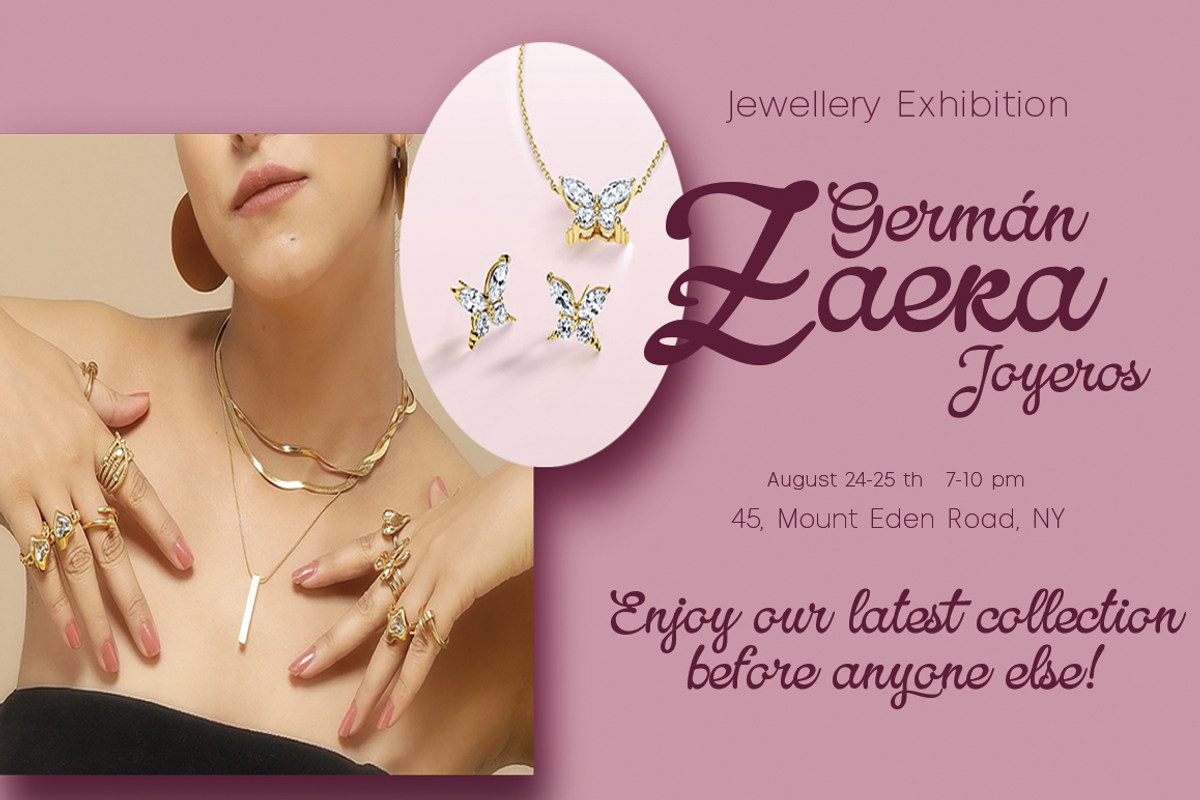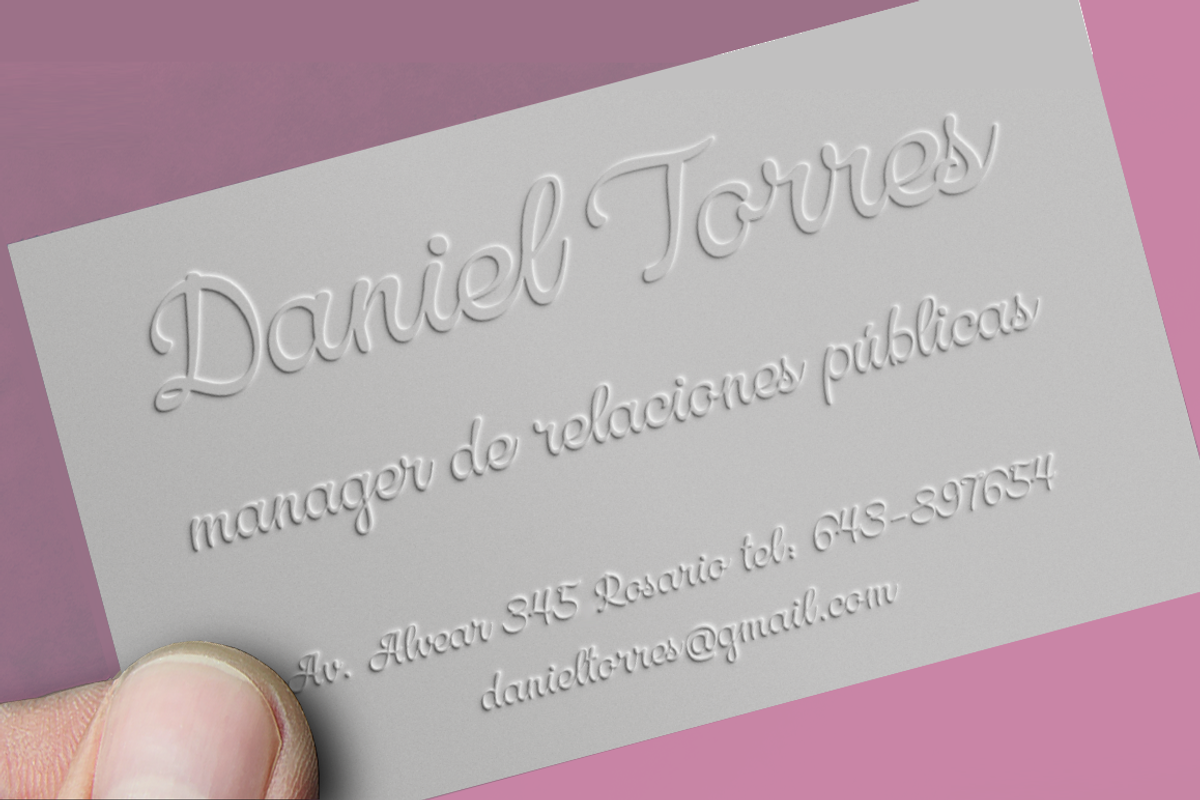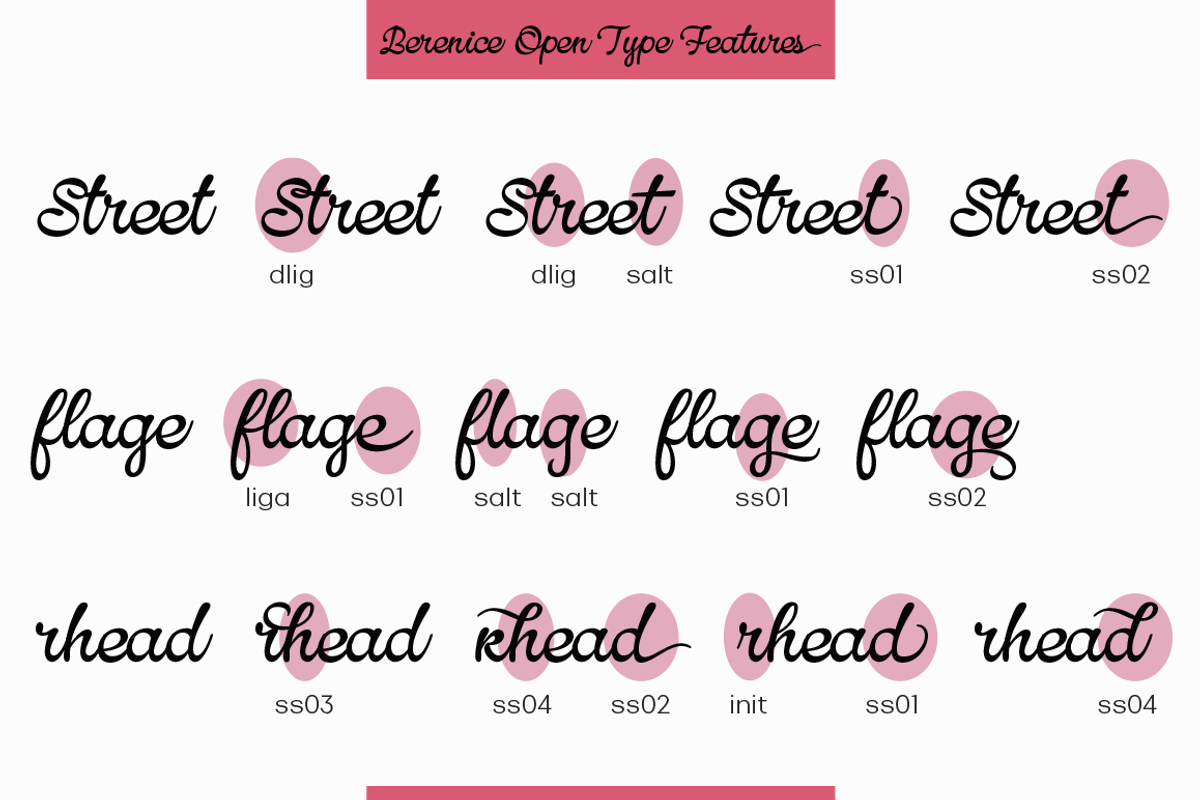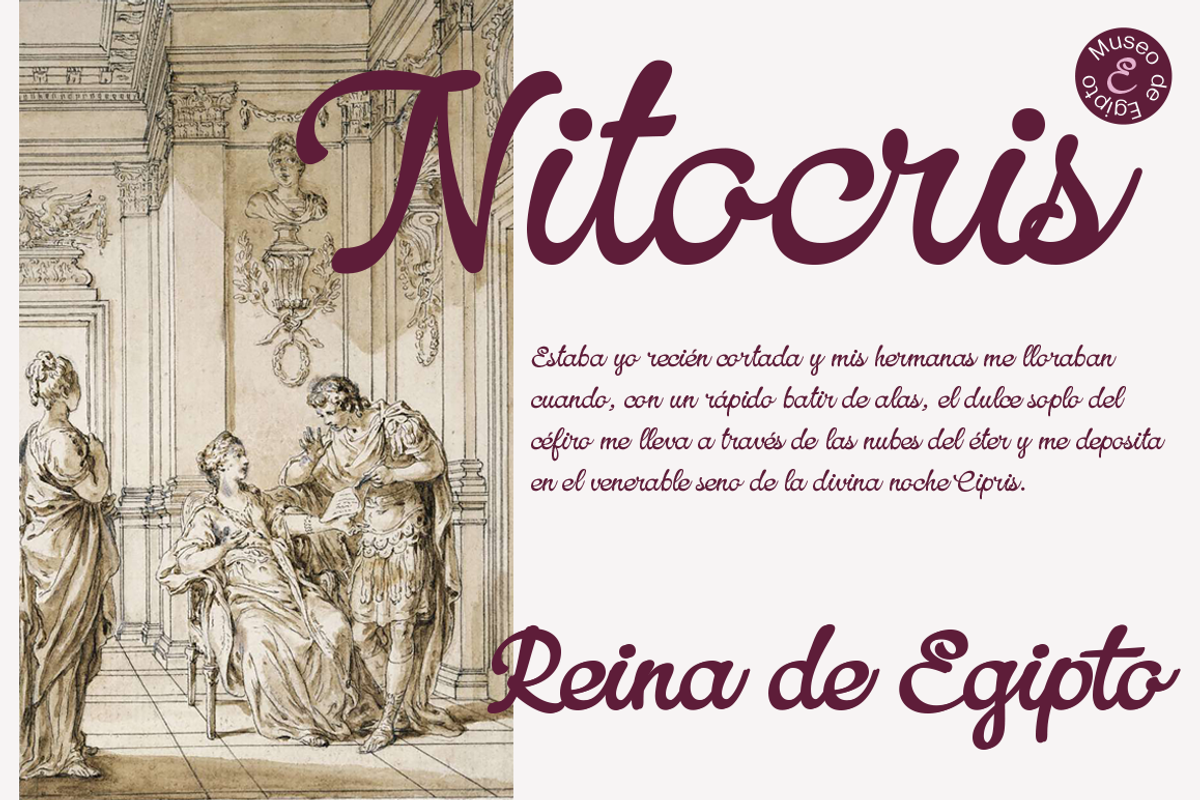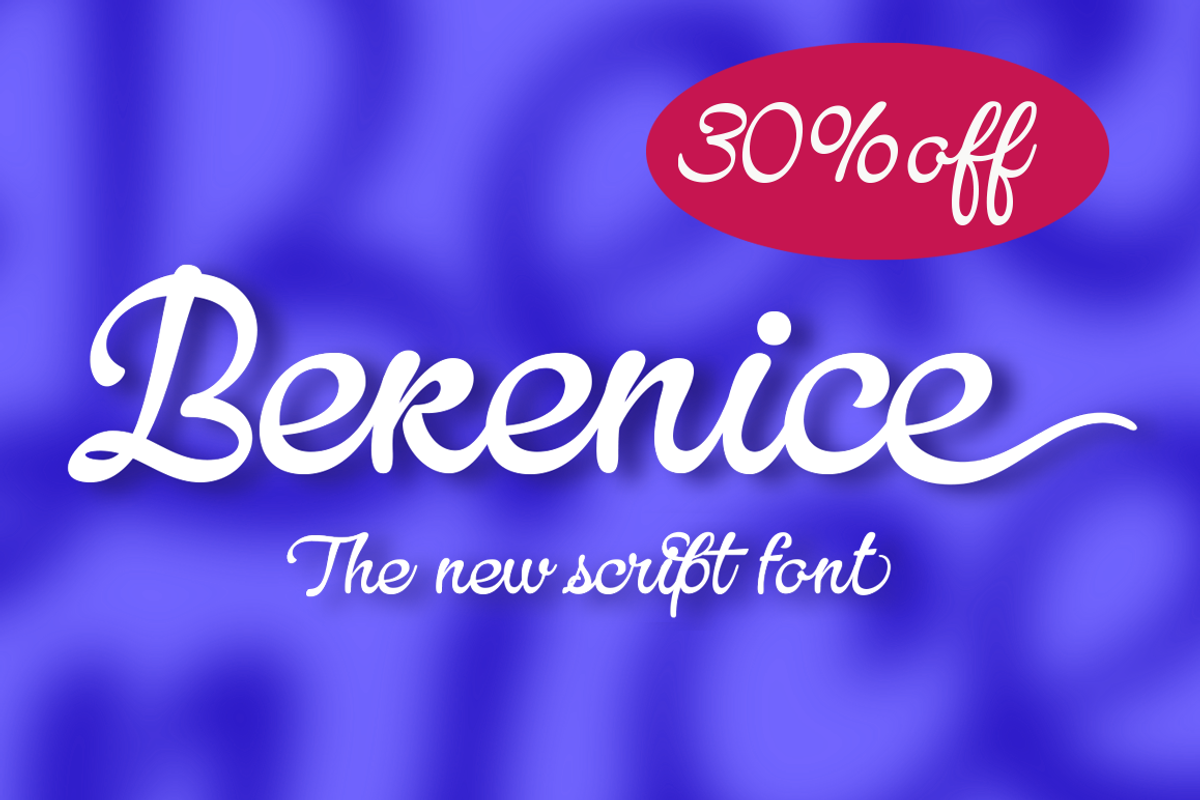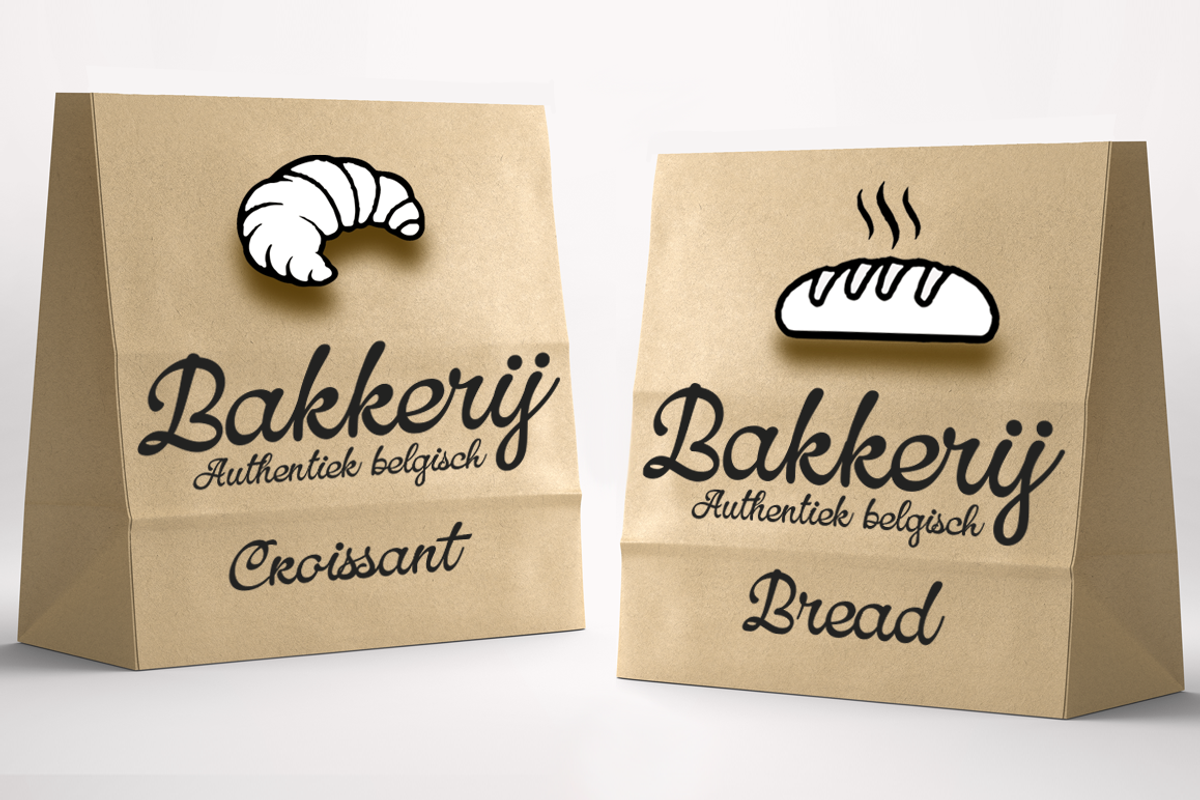
Berenice
Berenice is a font that combines fun, elegance and pure energy all at the same time! Its dynamic curves and lovely loops give it a unique touch that will make your text stand out like never before. Ideal for packagings, logos, cards, social media, invitations, headers... or any brilliant idea you can think of! Berenice is designed to impress and facilitate your creativity. It includes ligatures that create a unique, natural, alternating flow in upper and lower case to personalize every detail. With multilingual support and endless OpenType features, Berenice is the perfect choice to add a friendly, handcrafted touch to any design.